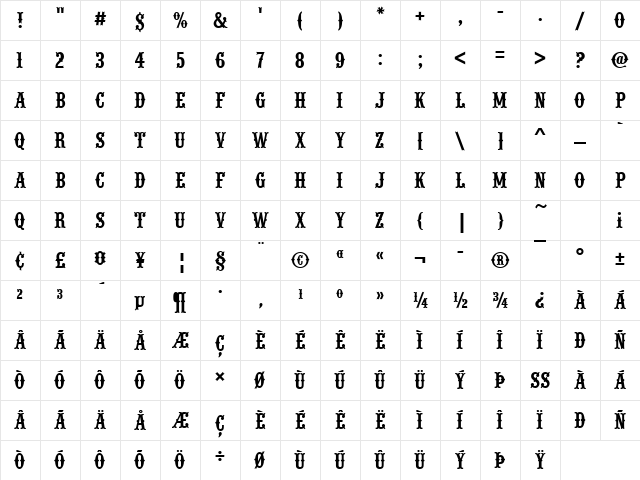
Complete URWWoodTypD Regular glyph index. Displaying only characters natively supported by URWWoodTypD Regular font.
URWWoodTypD echoes the hand-painted signage and woodblock typography of the American frontier, with a warm, rugged personality.
Font Pairing: Combine URWWoodTypD with a simple slab or neutral sans - period-accurate companions reinforce the vintage feel without competing for attention.
Pro Tip: Use URWWoodTypD for short, impactful bursts of text - it shines in poster headlines and product names rather than extended copy.